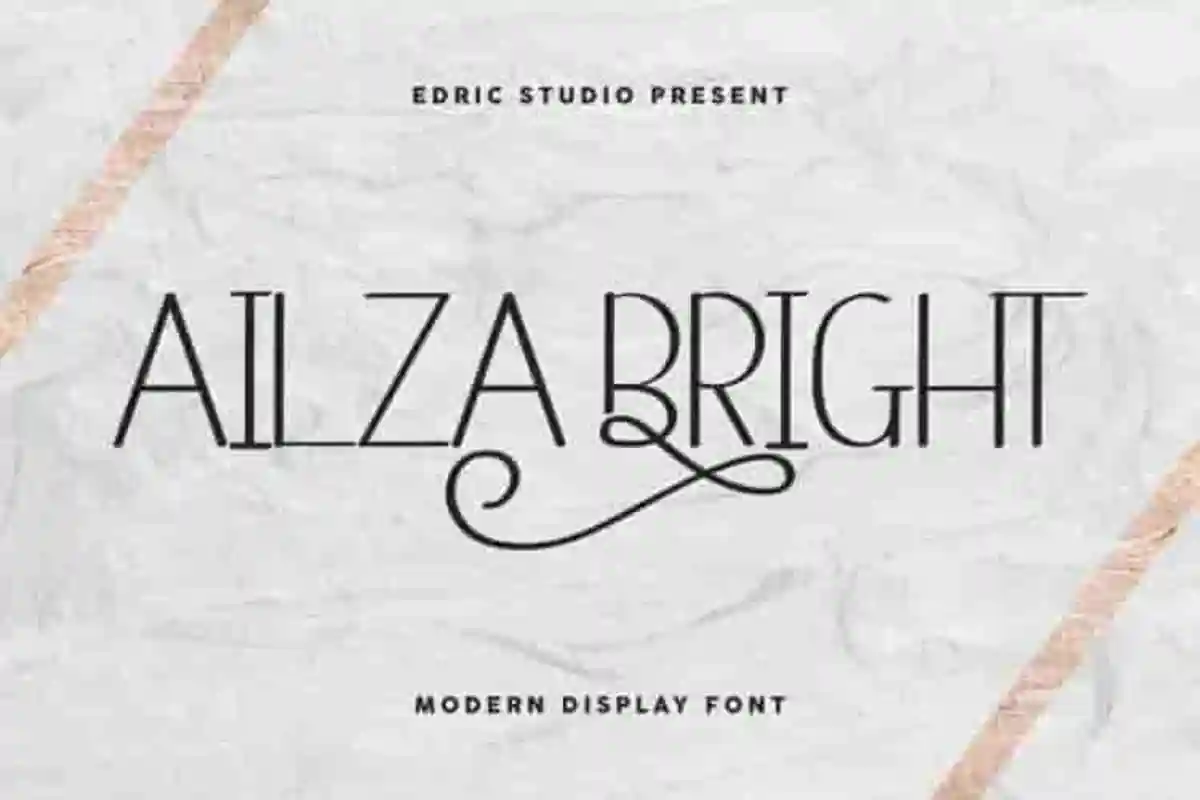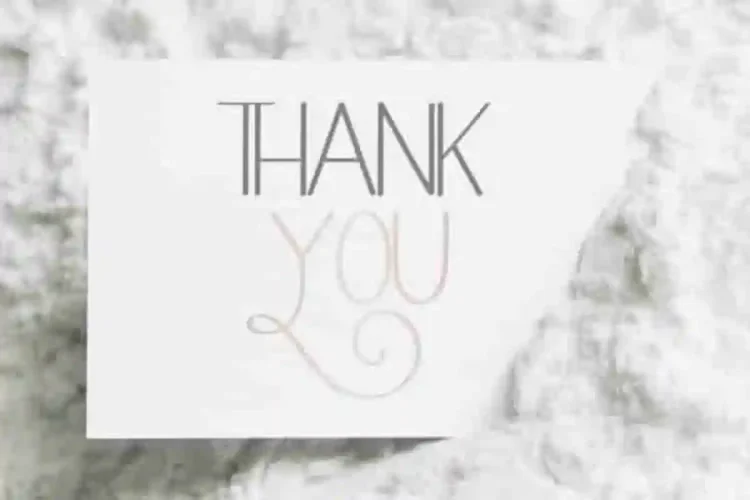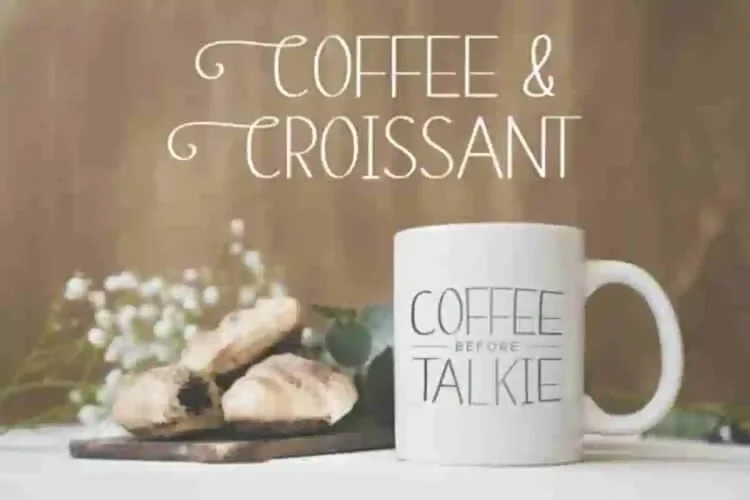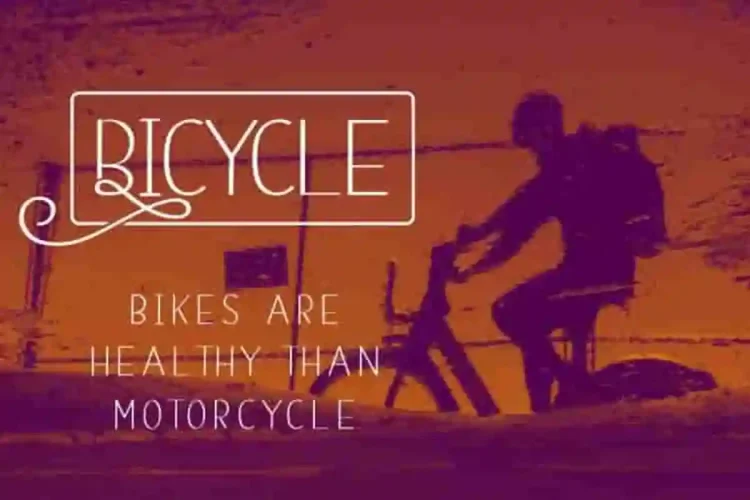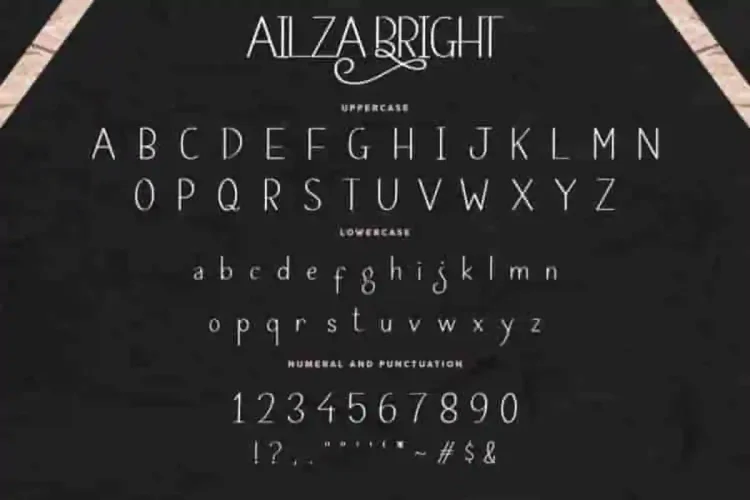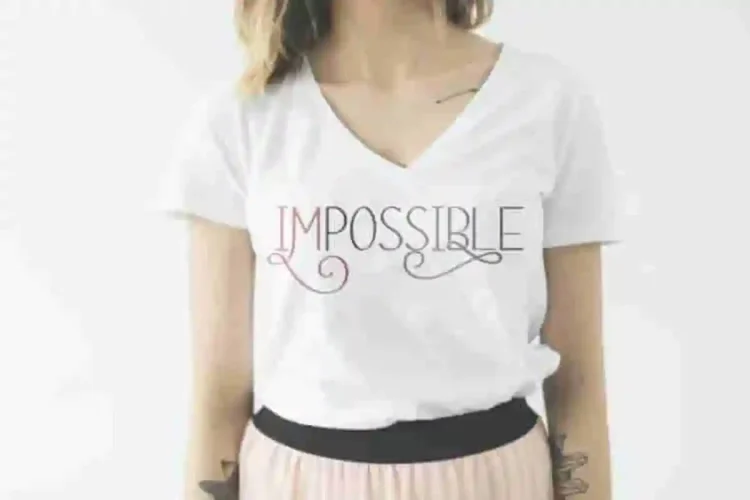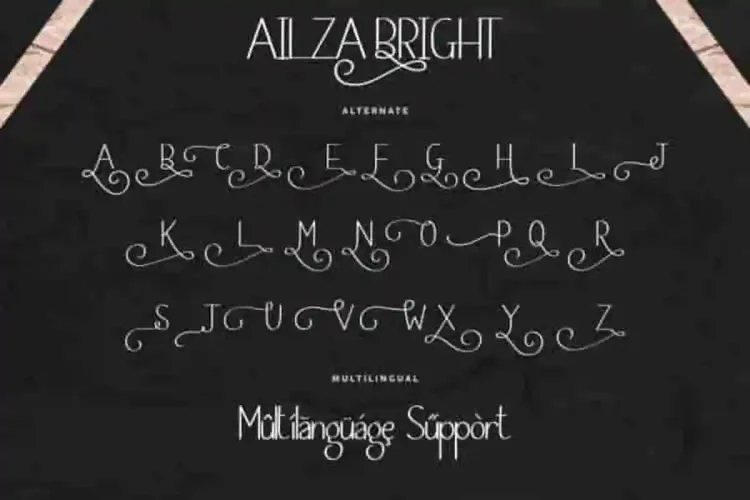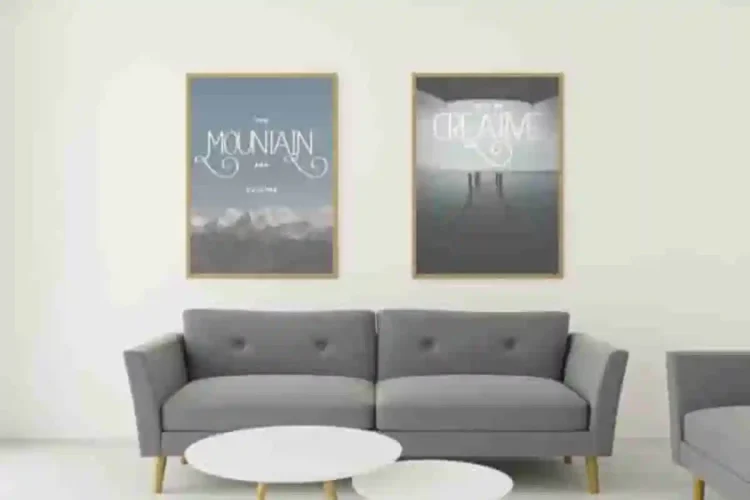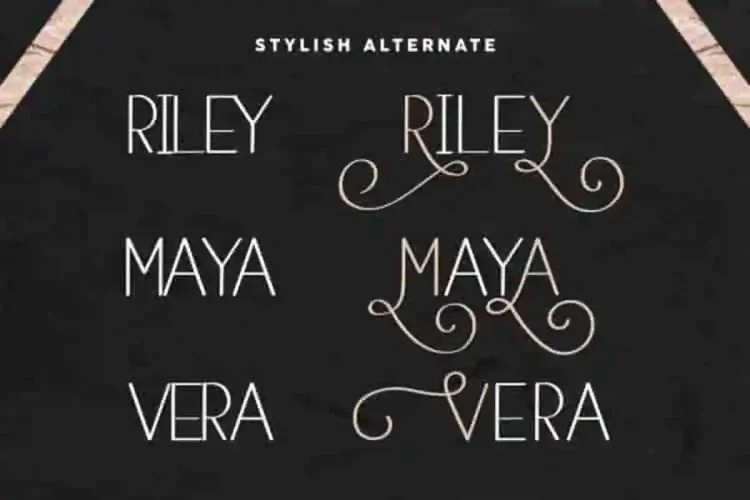
Ailza Bright Display Sans Font
Ailza Bright Display Sans Serif Font is a Display Sans Font inspired from Victorian Era, vintage yet stunning looks. This display font, handcrafted from our Studio here in, Indonesia. The artists/designers of this beautiful tyeface is Widi and Sarah.
Ailza Bright Font is an exclusive sans serif for display purpose. This font has a stunning characters set, perfectly managed with well spaced and kerning. The theme style of this font will elegant,  vintage, stylish, sophisticated and classic signature style.